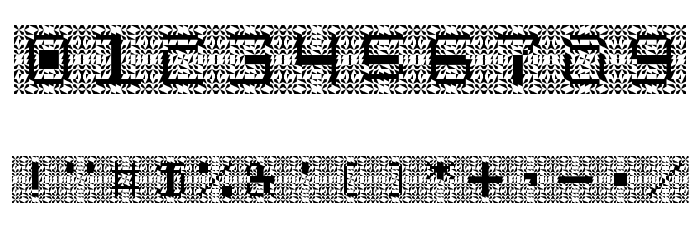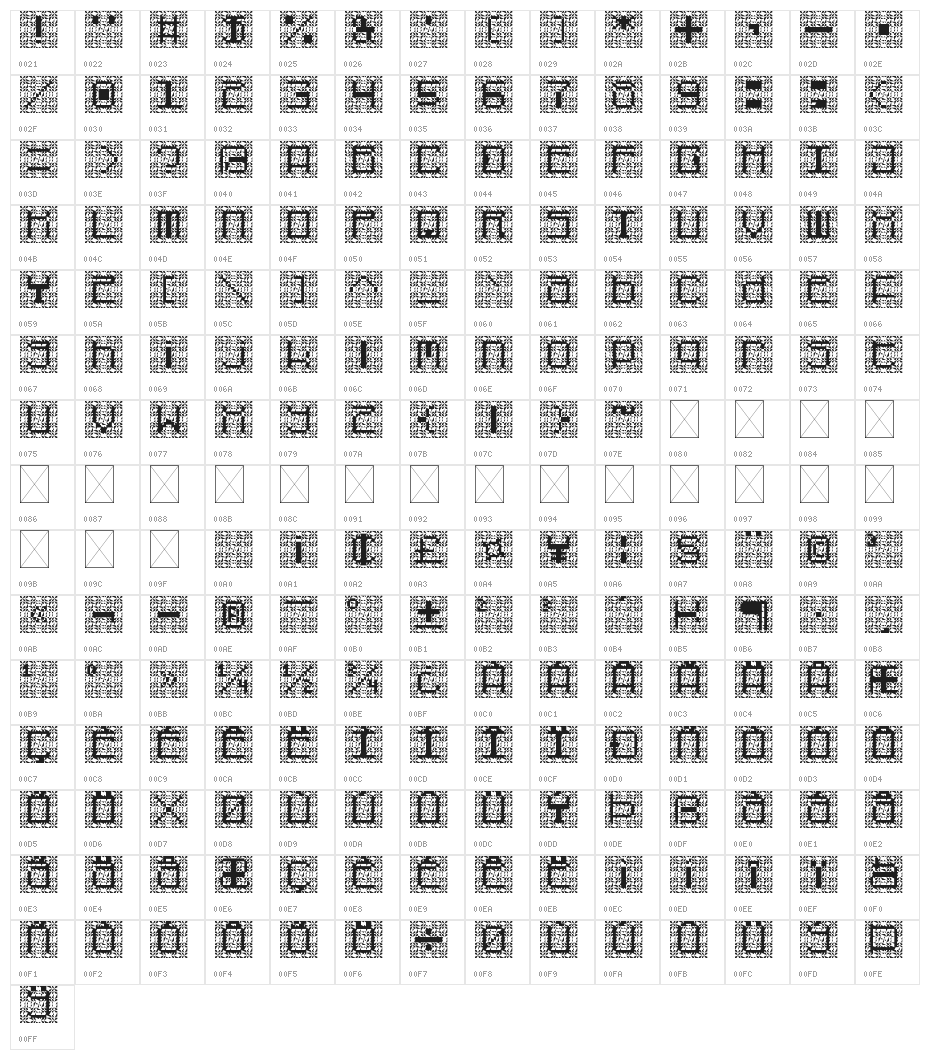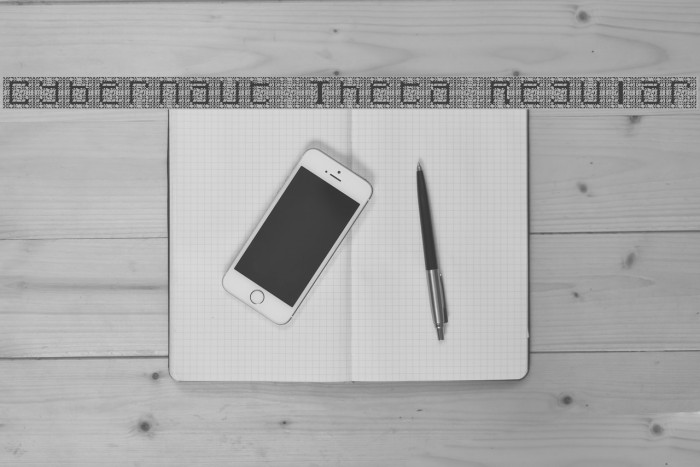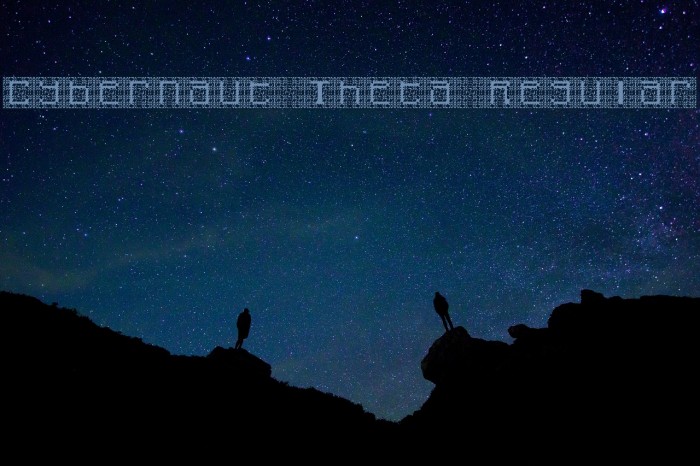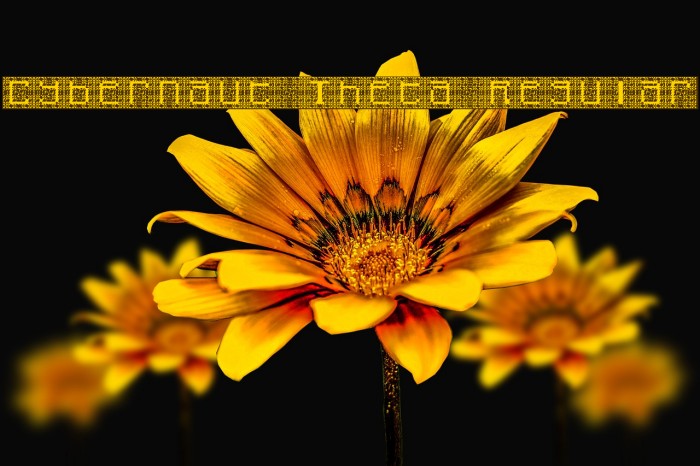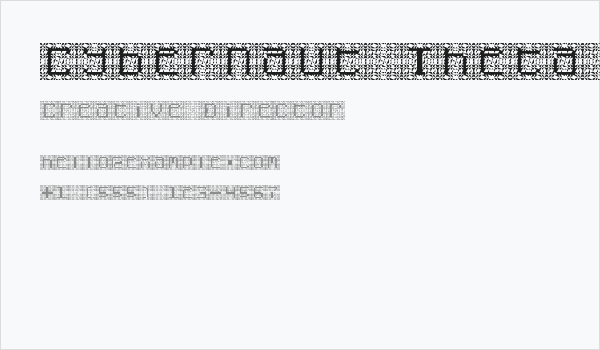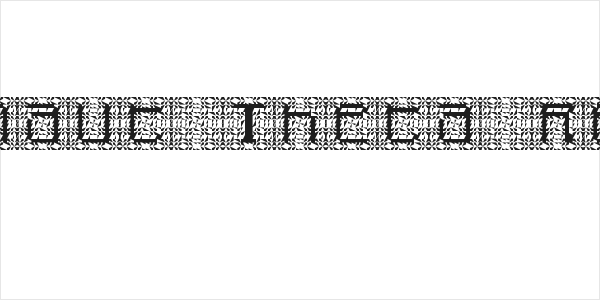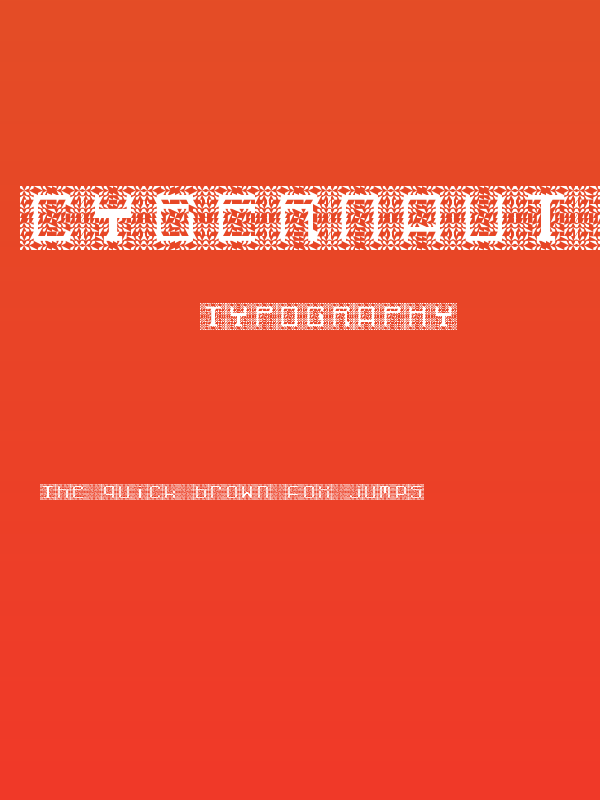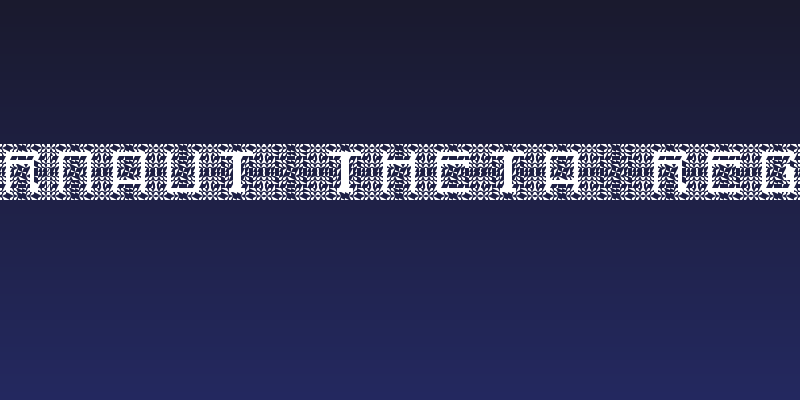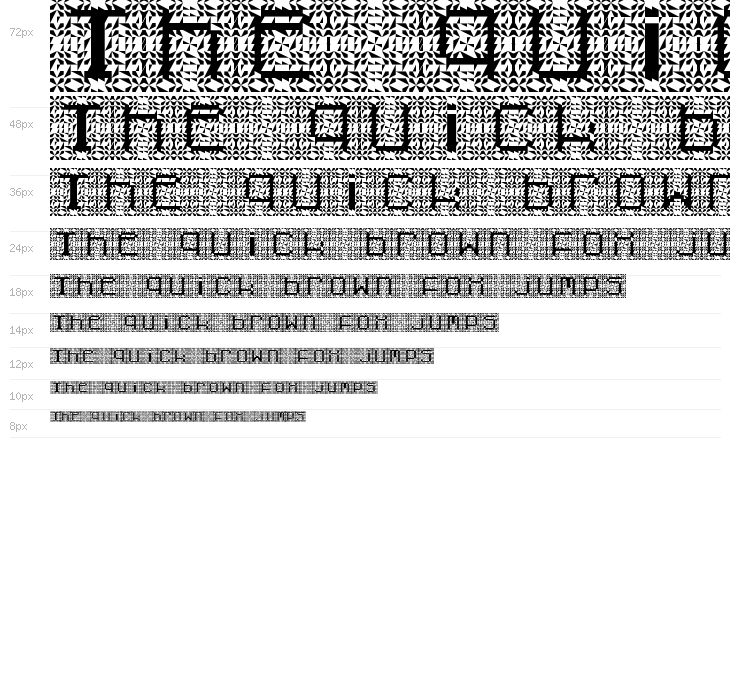
Cybernaut Theta Regular Font
Cybernaut Theta Regular Description
This font features a futuristic and digital aesthetic, characterized by its pixelated and geometric design. Each character is constructed with a grid-like pattern, giving it a distinctly technological feel. The uppercase and lowercase letters maintain a consistent height, contributing to a uniform appearance. The numerals and special characters follow the same design principles, ensuring cohesion across all elements. The font's unique style makes it ideal for projects that require a modern, tech-inspired look.
| Use Case | Logos, Headlines, Digital Art |
| Proposed Projects | Ideal for tech-themed posters, video game graphics, digital art projects, and sci-fi book covers. |